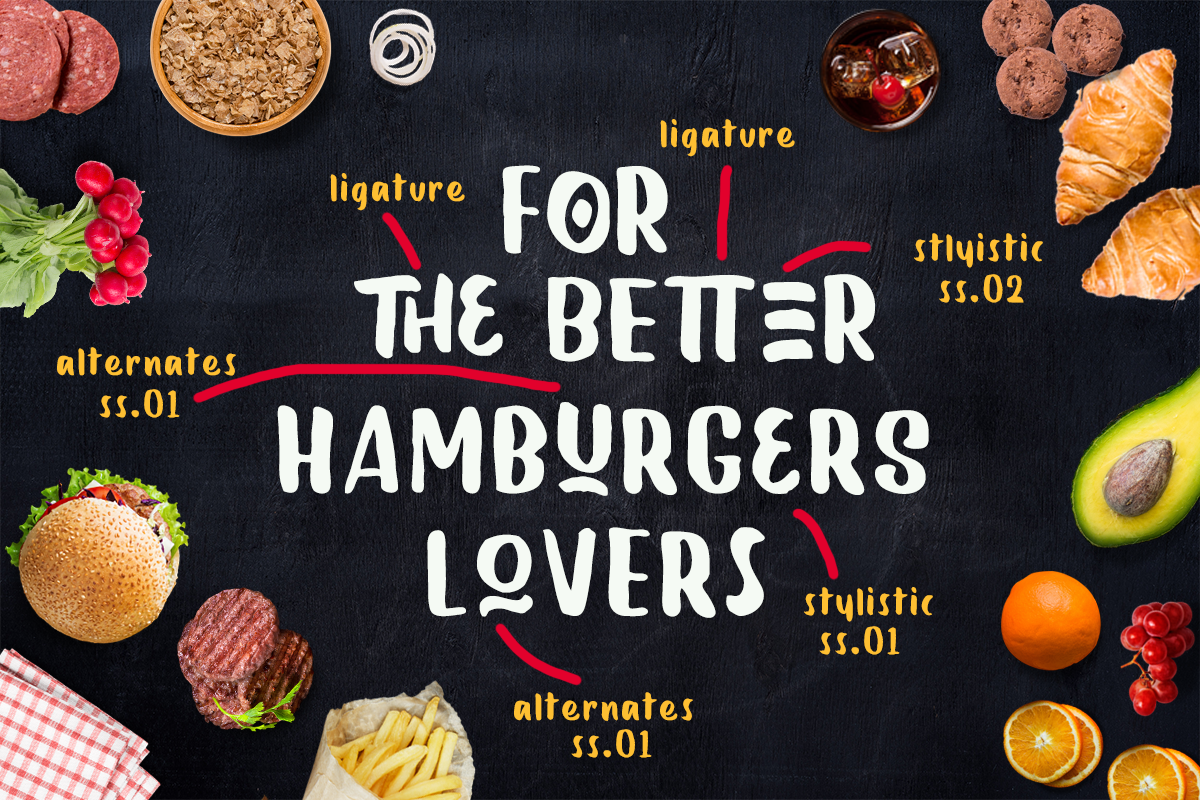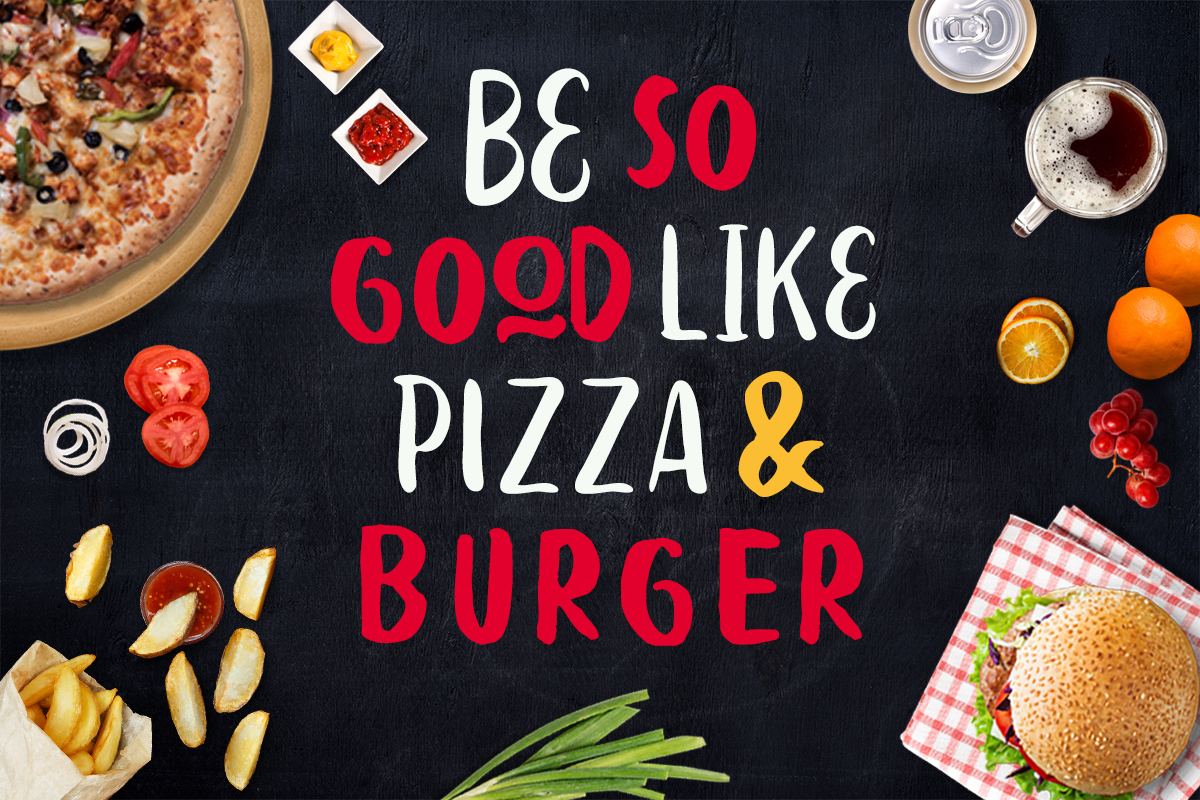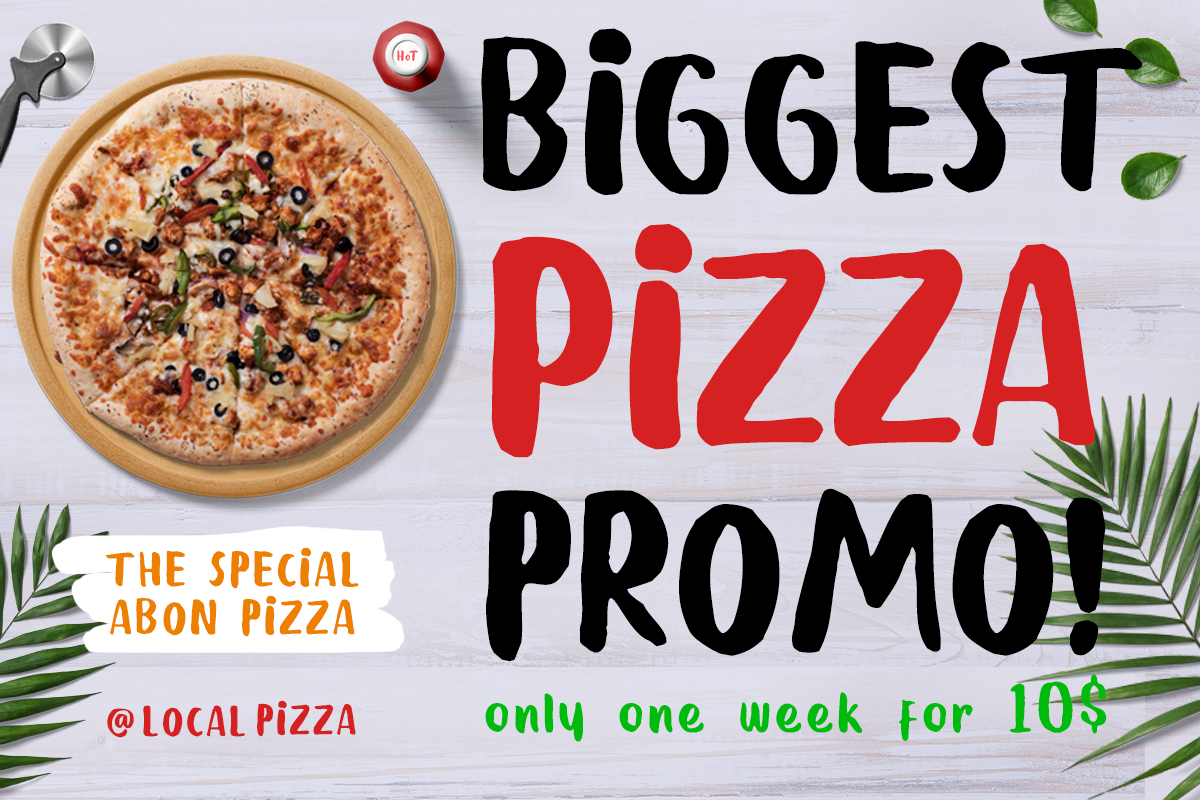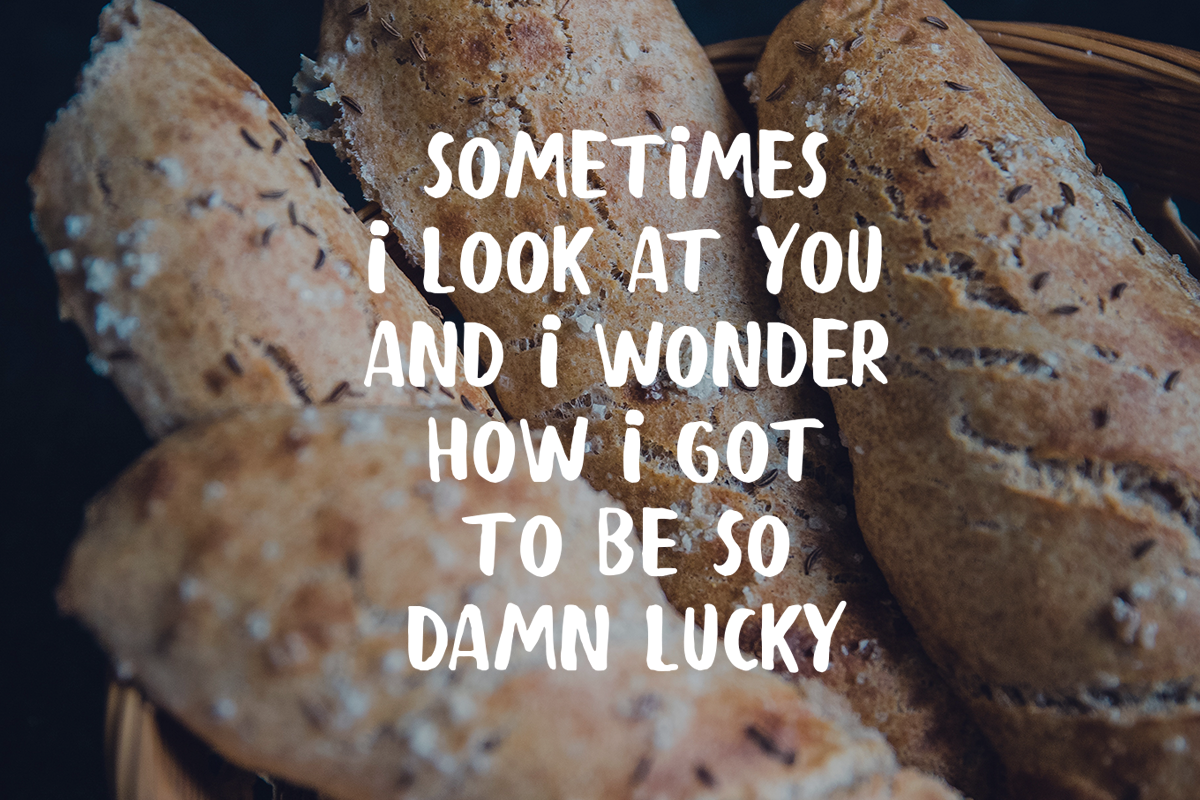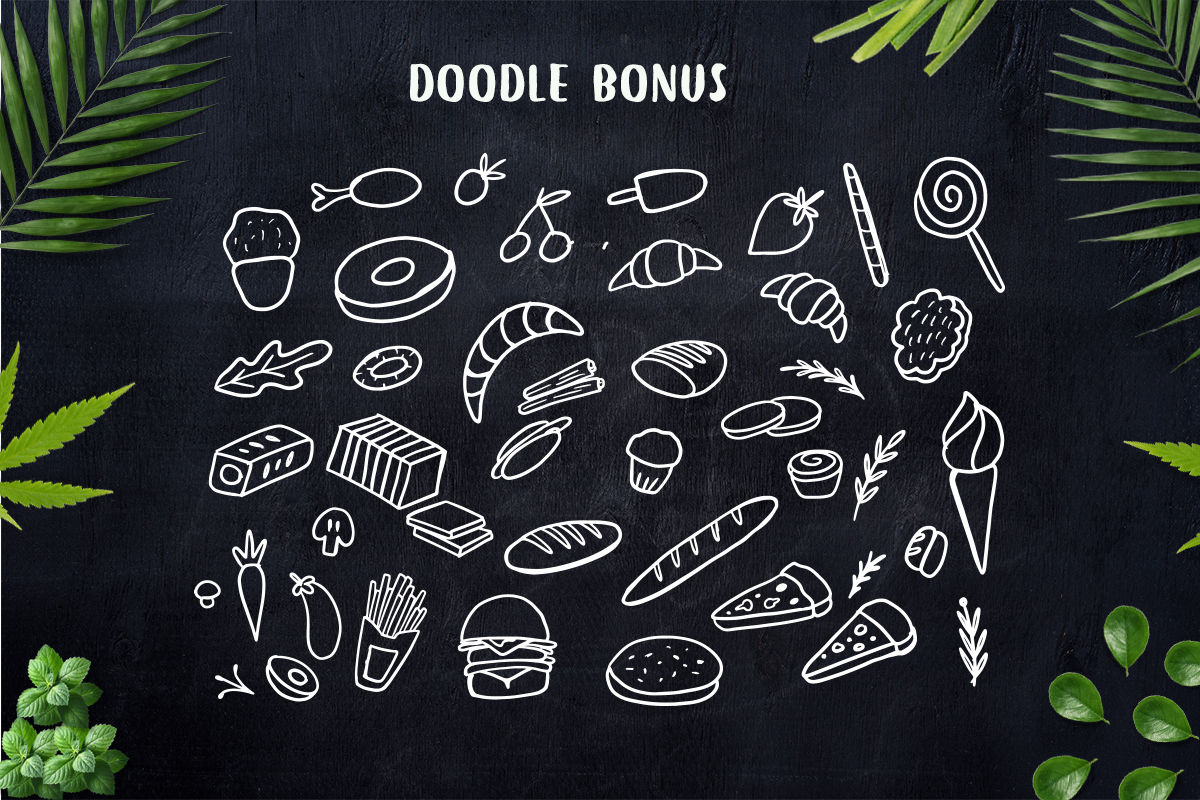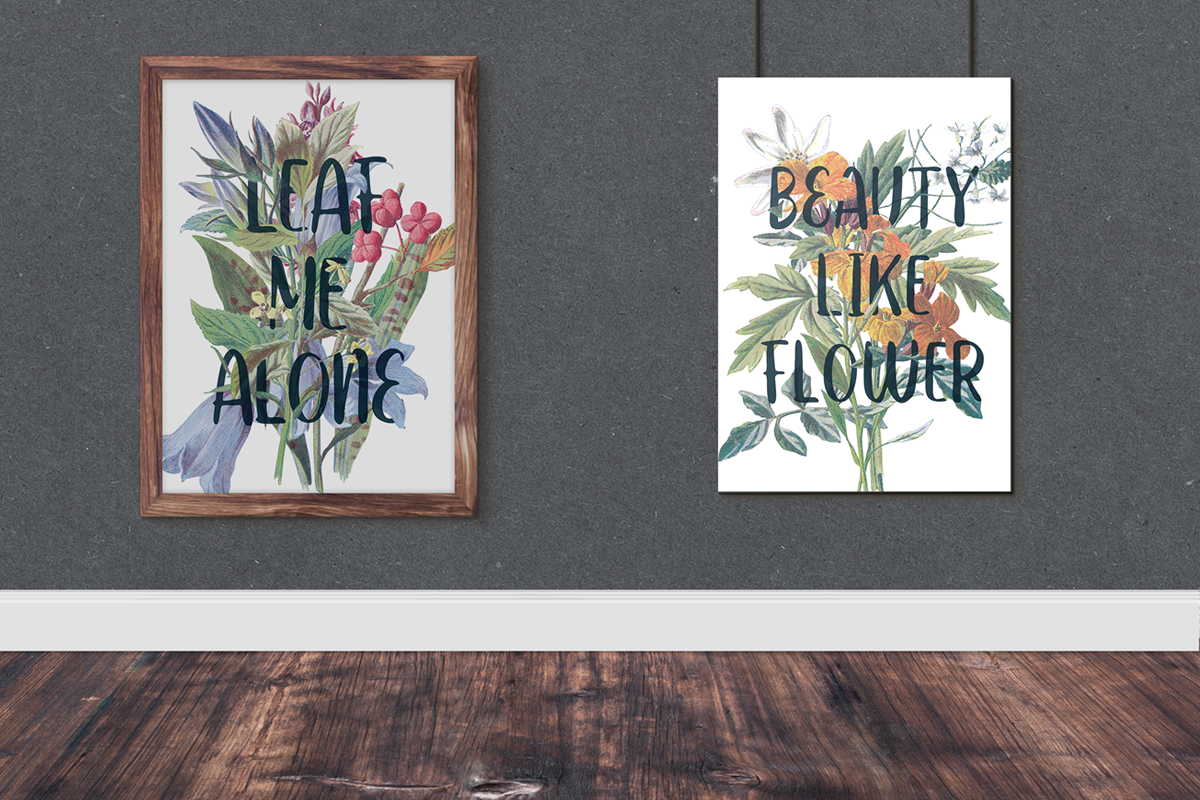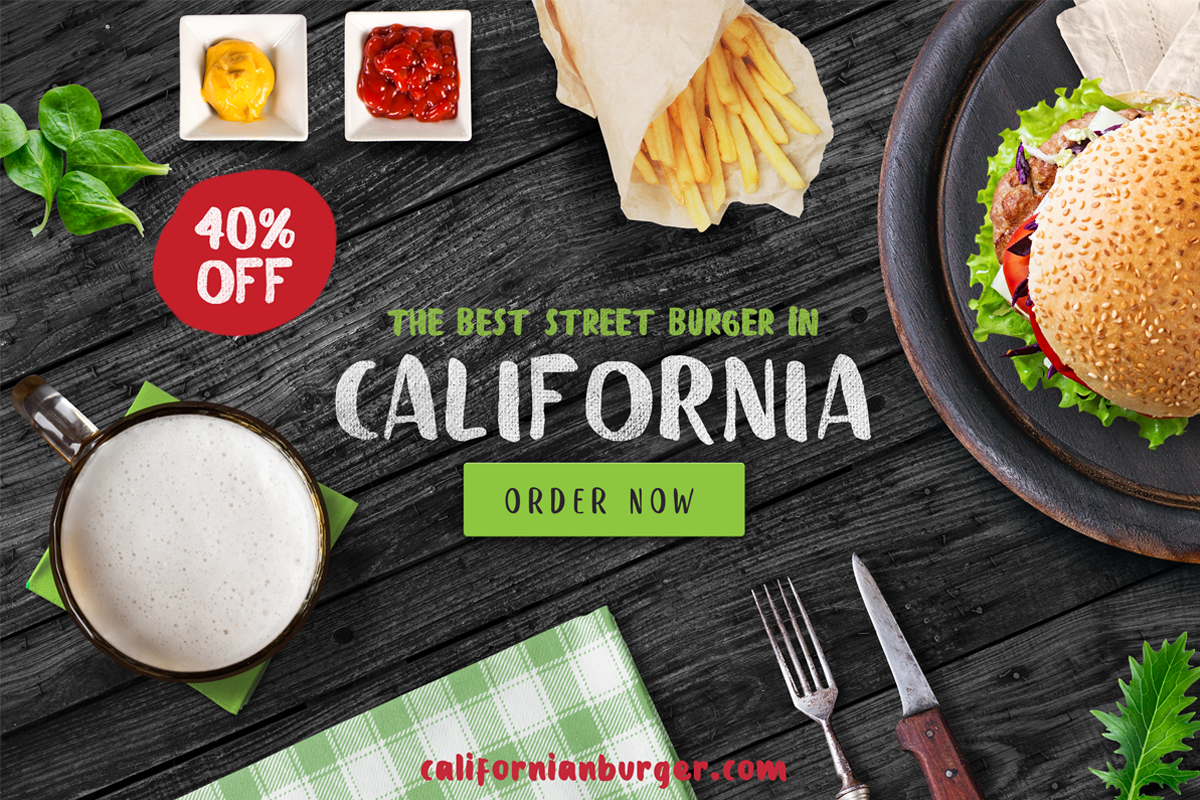
Fresh Meat 4 Font Pack + Bonus
Fresh Meat is a family of 4 Display font designed with carefully handcrafted. Also suitable for Every Mockups, Menu Designs, Branding, T-shirt, Wedding Invitation, Logotype, and any project. With four style make you easier to design everythings, and a Doodle bonus to make better design.
Multilingual Support support many different languages 20+ . included AÀÁÂÃÄÅCÇDÐEÈÉÊËIÌÍÎÏNÑOØÒÓÔÕÖUÙÜÚÛWYÝŸỲŸÆŒßÞþ